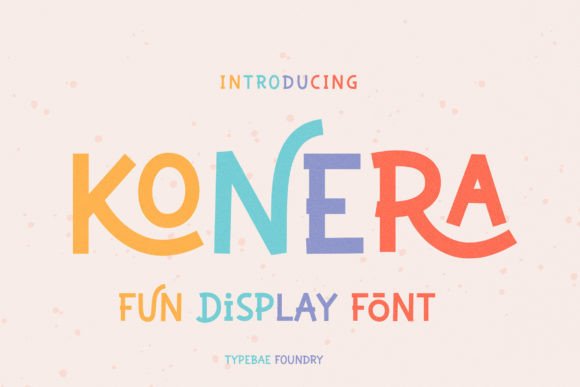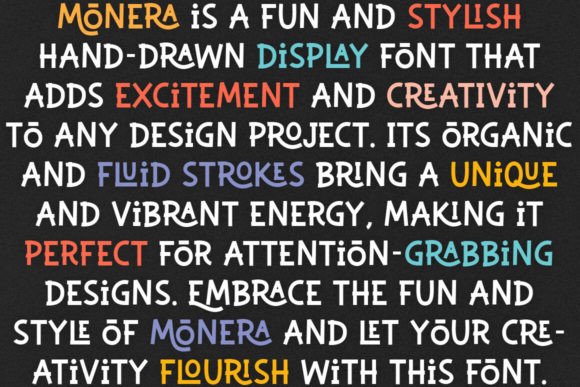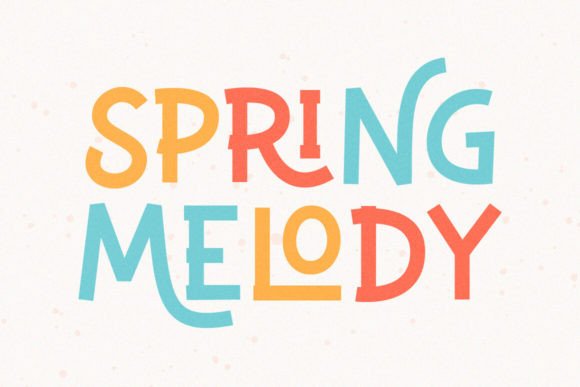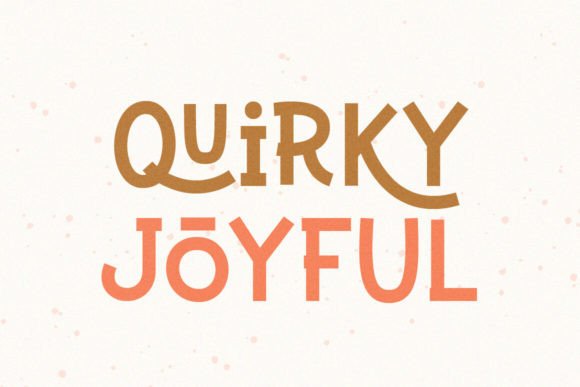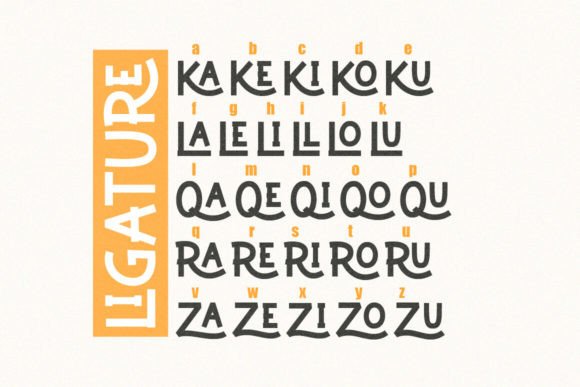
Konera Font
Konera is a fun and stylish hand-drawn display font that adds a playful touch to any design. With its charming style, it brings a touch of uniqueness and character to your projects. Let your creativity shine with this captivating font that effortlessly combines fun and style.